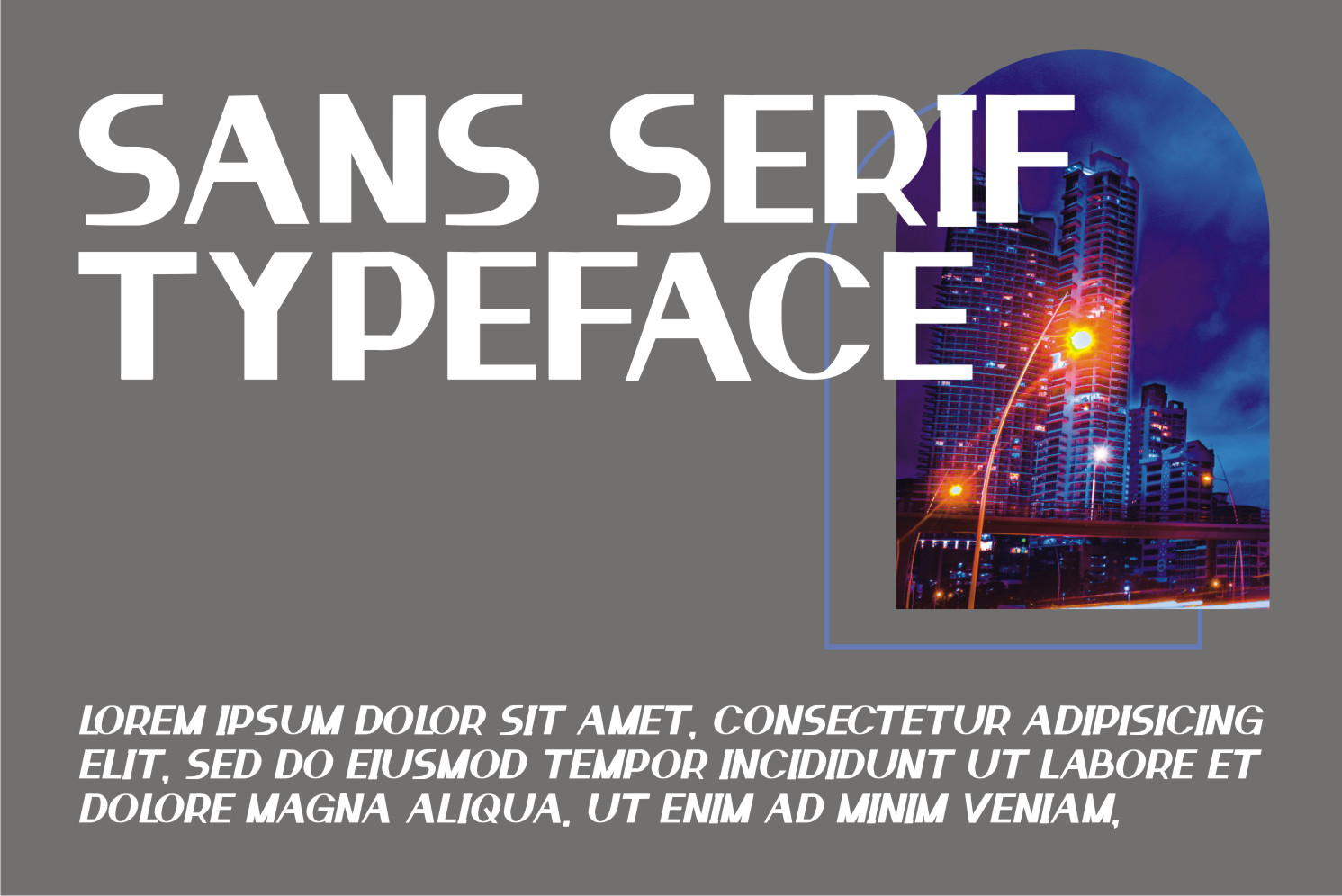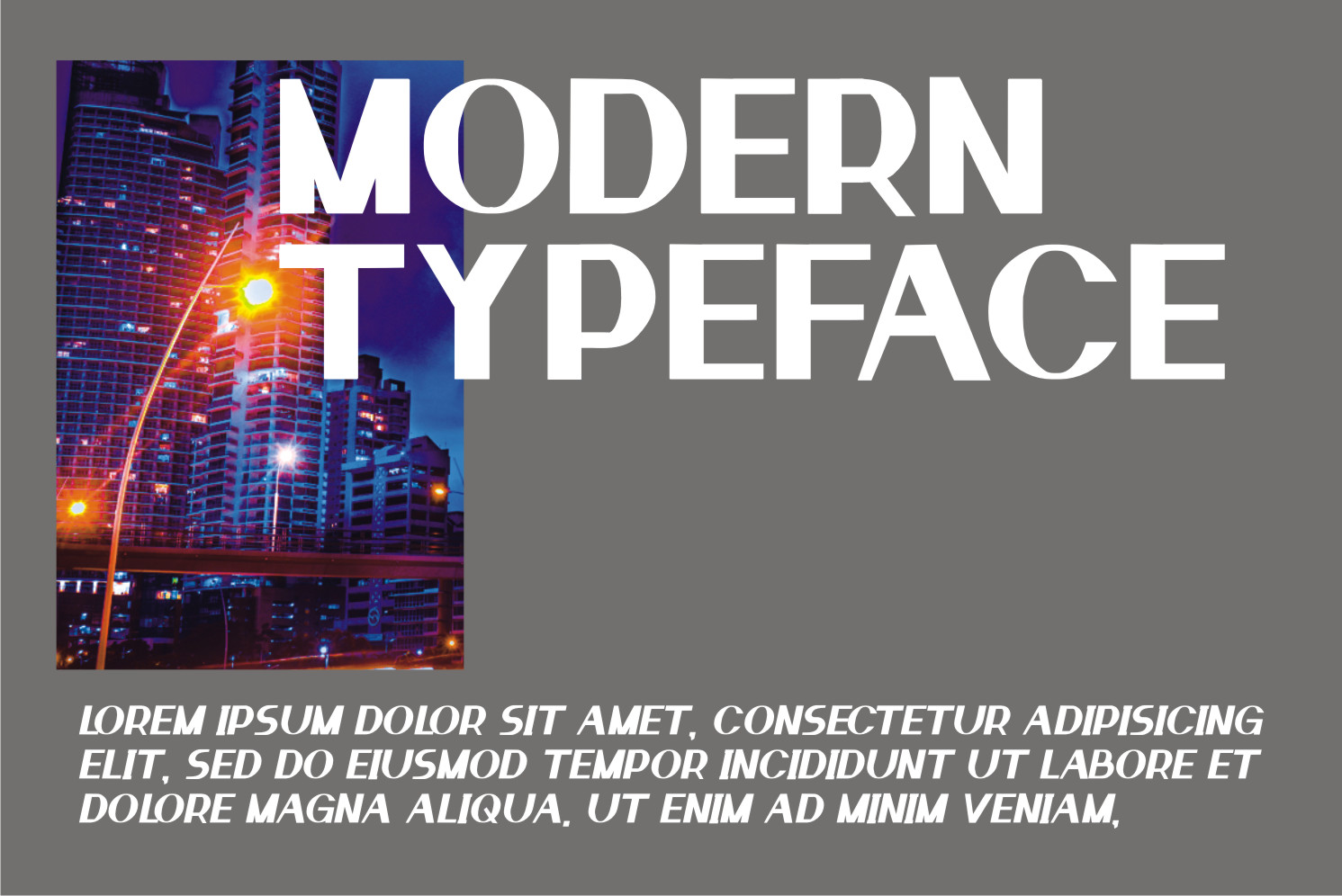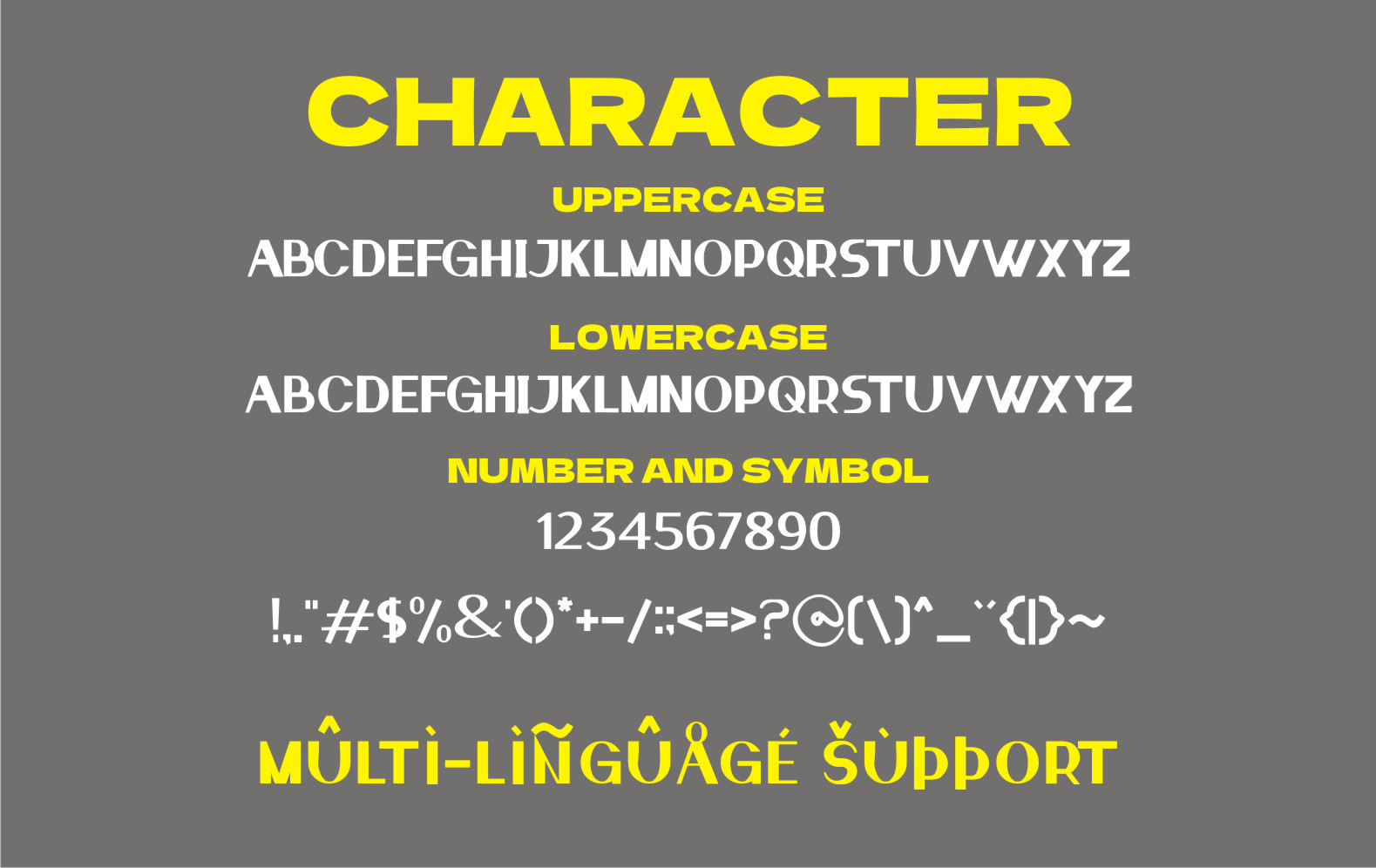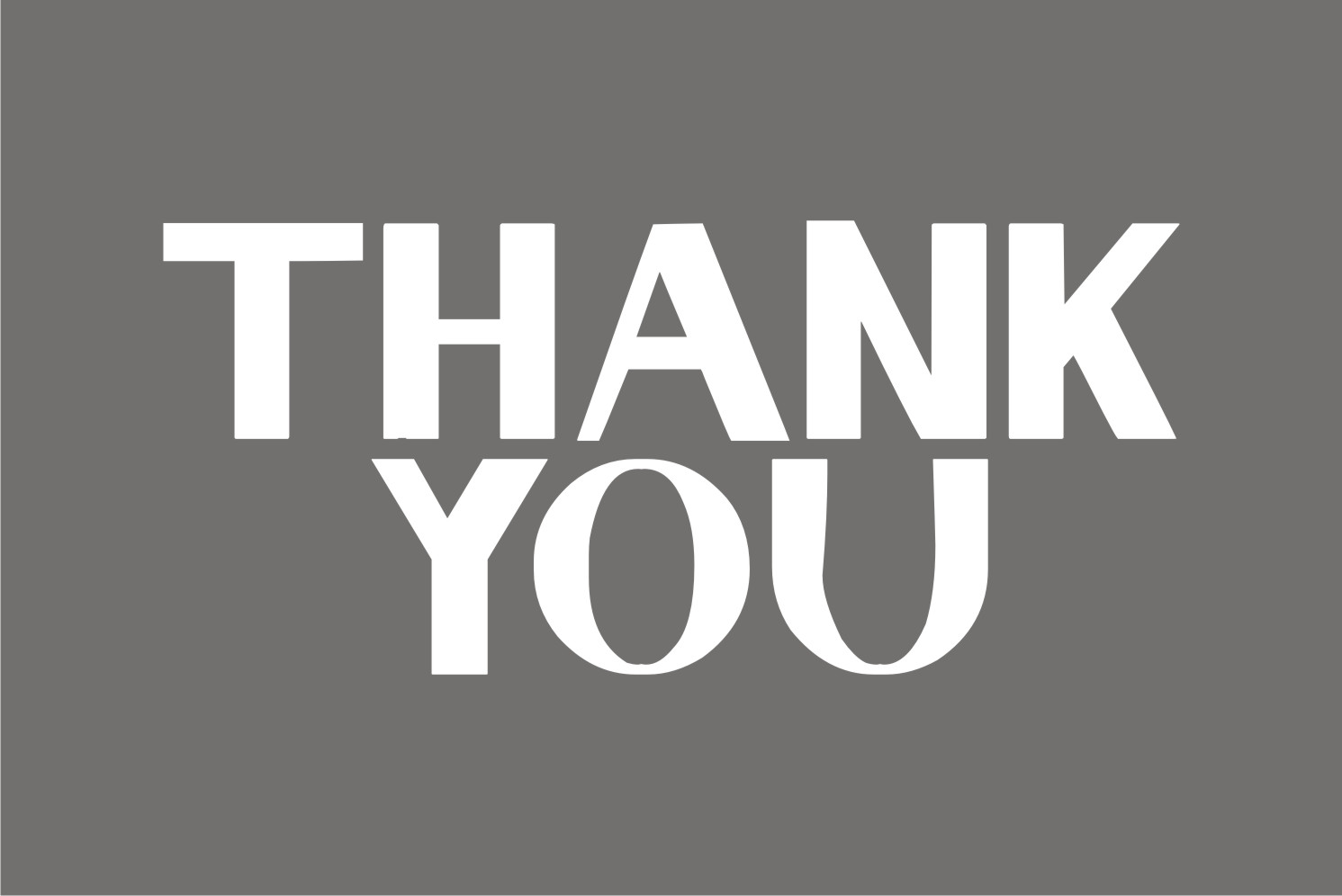
Meluca Font
Meluca Sans Serif Font
It’s a luxurious and modern looking sans serif font. It can easily be matched to an incredibly large set of projects, so add it to your creative ideas and notice how it makes them stand out!